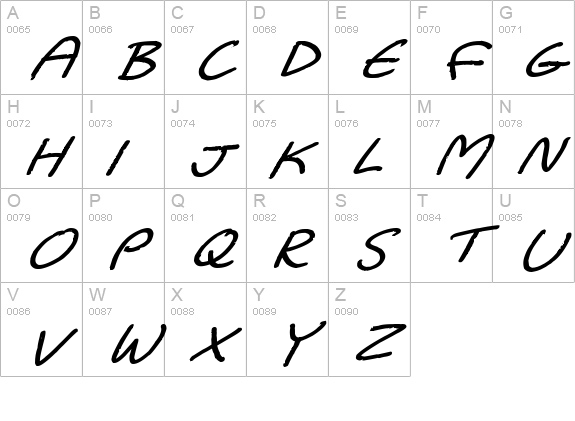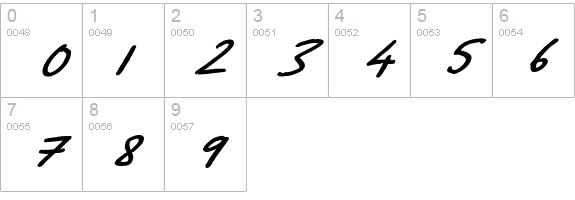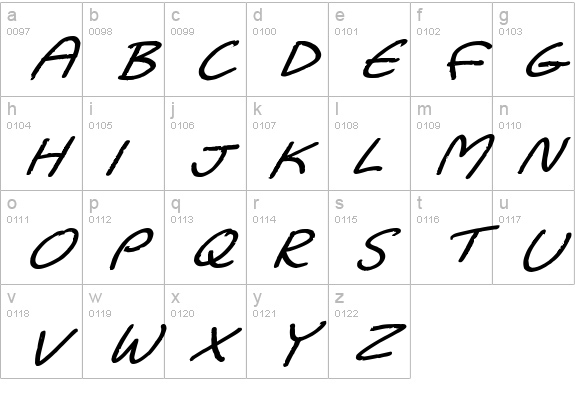
Dadiomouse Font Details
Dadiomouse is a free for personal use font in the Script > Handwritten category, designed by Darrell Flood. It has been downloaded 36 times and is available for Windows, Mac and Linux.
Dadiomouse font is a charming and playful typeface that will add a touch of whimsy to your designs. With its rounded edges and quirky details, this font is perfect for projects that need a fun and friendly feel. Dadiomouse font is versatile and can be used for a variety of purposes, from branding to invitations to social media graphics.